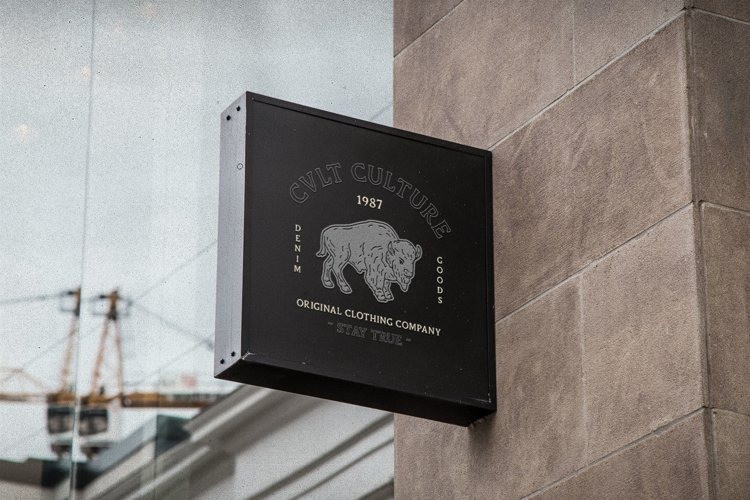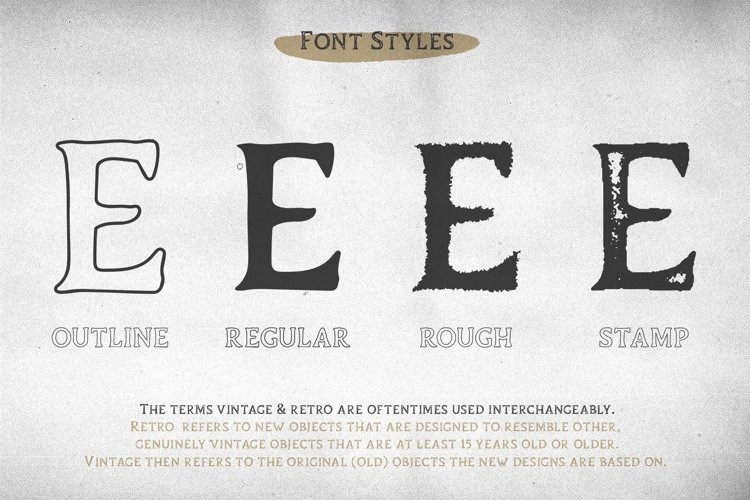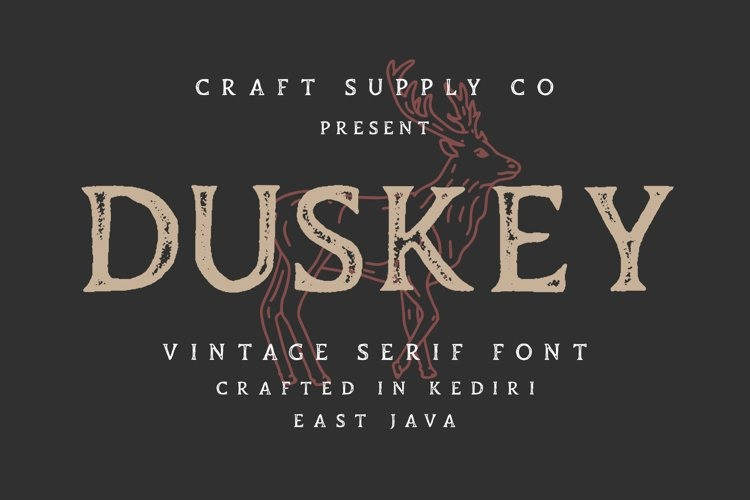
Duskey Font
Duskey Display Font
This is a sweet all caps sans serif font manufactured by Craft Supply Co. It can be used to create almost all types of design projects like print materials. Just use your imagination and some graphic design set in Extras, your project will become more alive and look great than ever with one of the Offlander Font.
You want to make a greeting card or a package design, or even a brand identity, craft design, any DIY project, book title, wedding font, pop vintage design, retro design or any purpose to make your art / design project look pretty and trendy? Feel free to play with all style of this font!